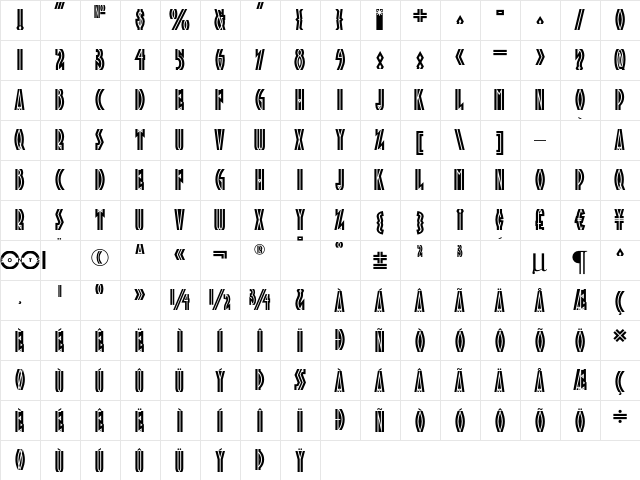
Tropicana NF Regular
| Foundry | Nick's Fonts |
| Designer | Nick Curtis |
Design Context for Tropicana NF Typeface
Tropicana NF is a composed and adaptable typeface that performs quietly and consistently across a wide range of design contexts.